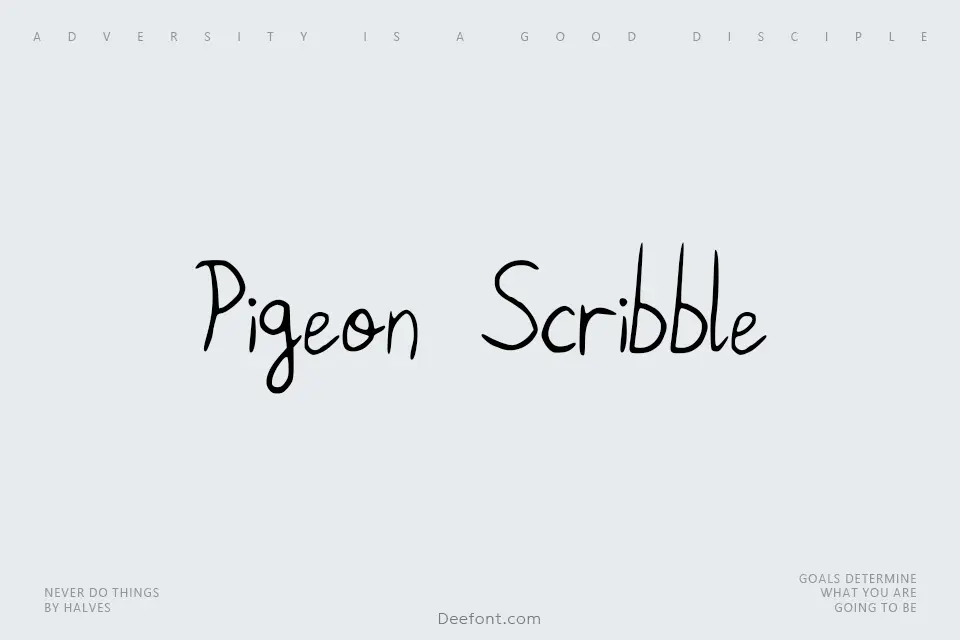
Pigeon Scribble Font
Pigeon Scribble is a raw and energetic handwritten font that captures the spontaneous chaos of rapid sketching. Its jagged, nervous strokes and unpolished finish mimic the look of hurried notes or a child’s drawing, making it distinctively authentic. This typeface is ideal for creating grunge-style posters, horror movie titles, playful packaging, and informal social media graphics that require a unique, hand-drawn aesthetic.